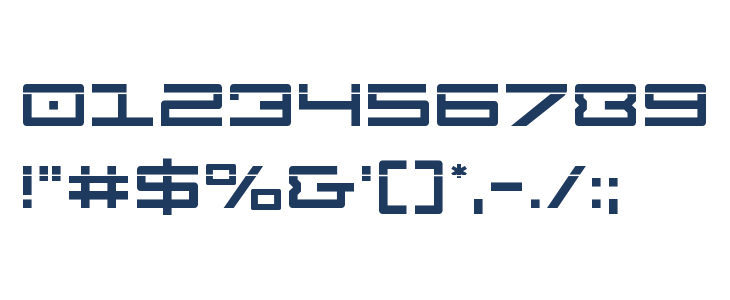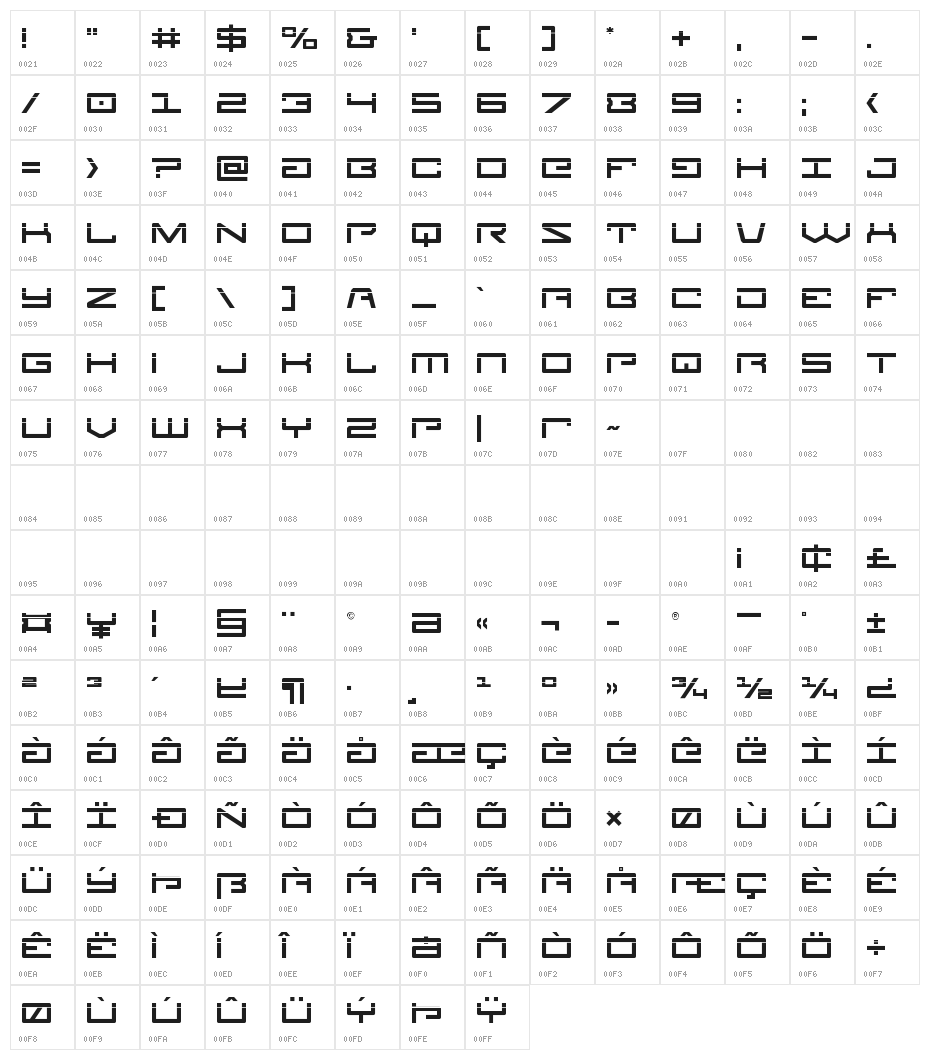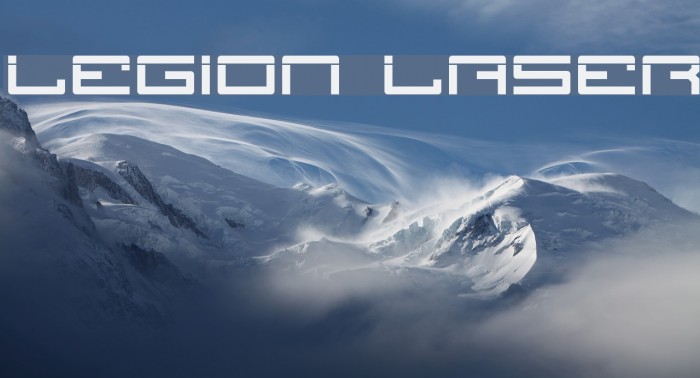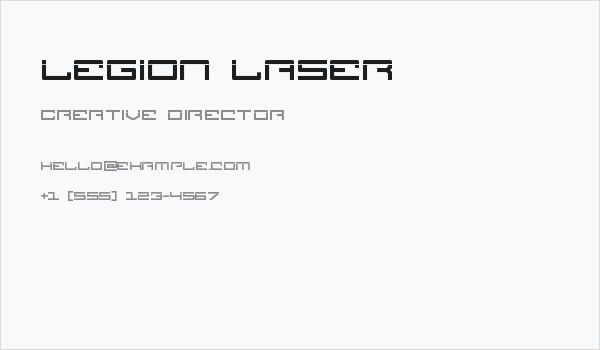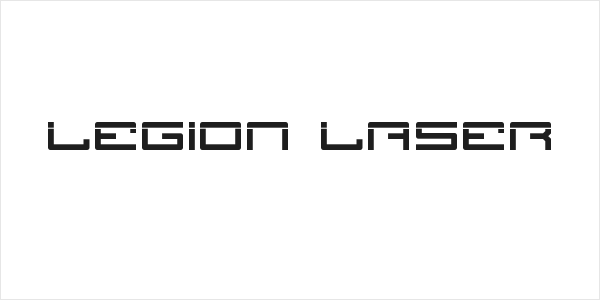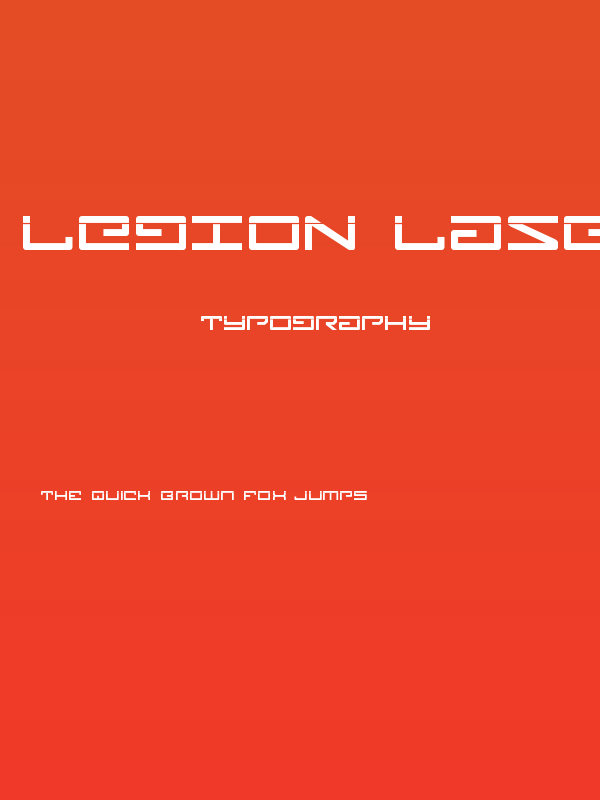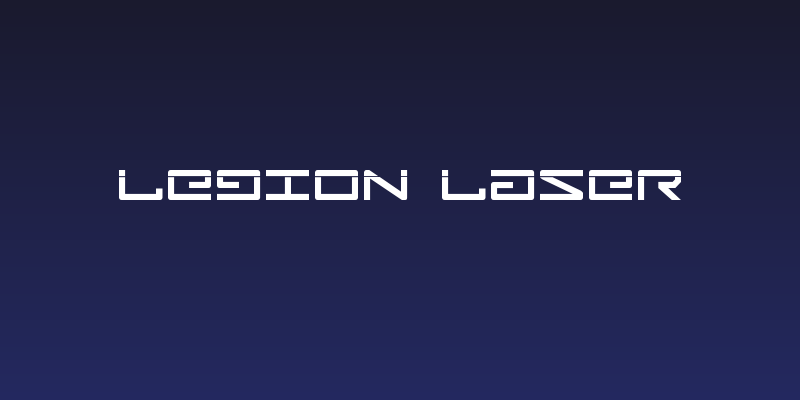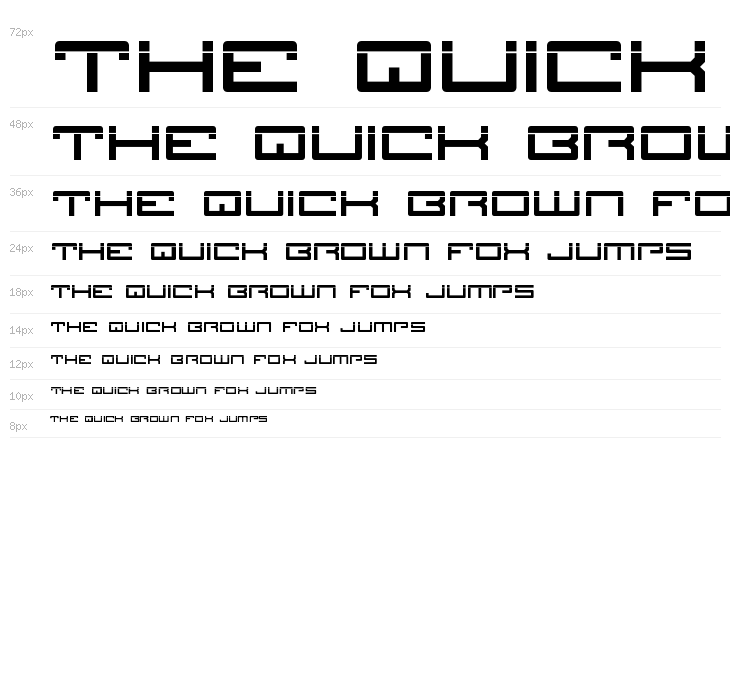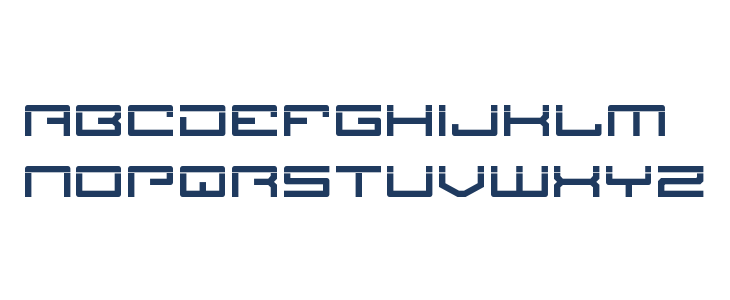
Legion Laser Font
Legion Laser Description
This font features a futuristic and geometric design, characterized by its sharp angles and clean lines. The uppercase and lowercase letters maintain a consistent height, giving it a monospaced appearance, although it is not strictly monospaced. The numerals and special characters follow the same angular and structured style, making it ideal for digital and tech-themed projects. The font's design is reminiscent of digital displays or sci-fi aesthetics, with a modern and sleek look that stands out in both print and digital media.
| Proposed Projects | Ideal for tech branding, video game titles, sci-fi posters, and digital interfaces. |